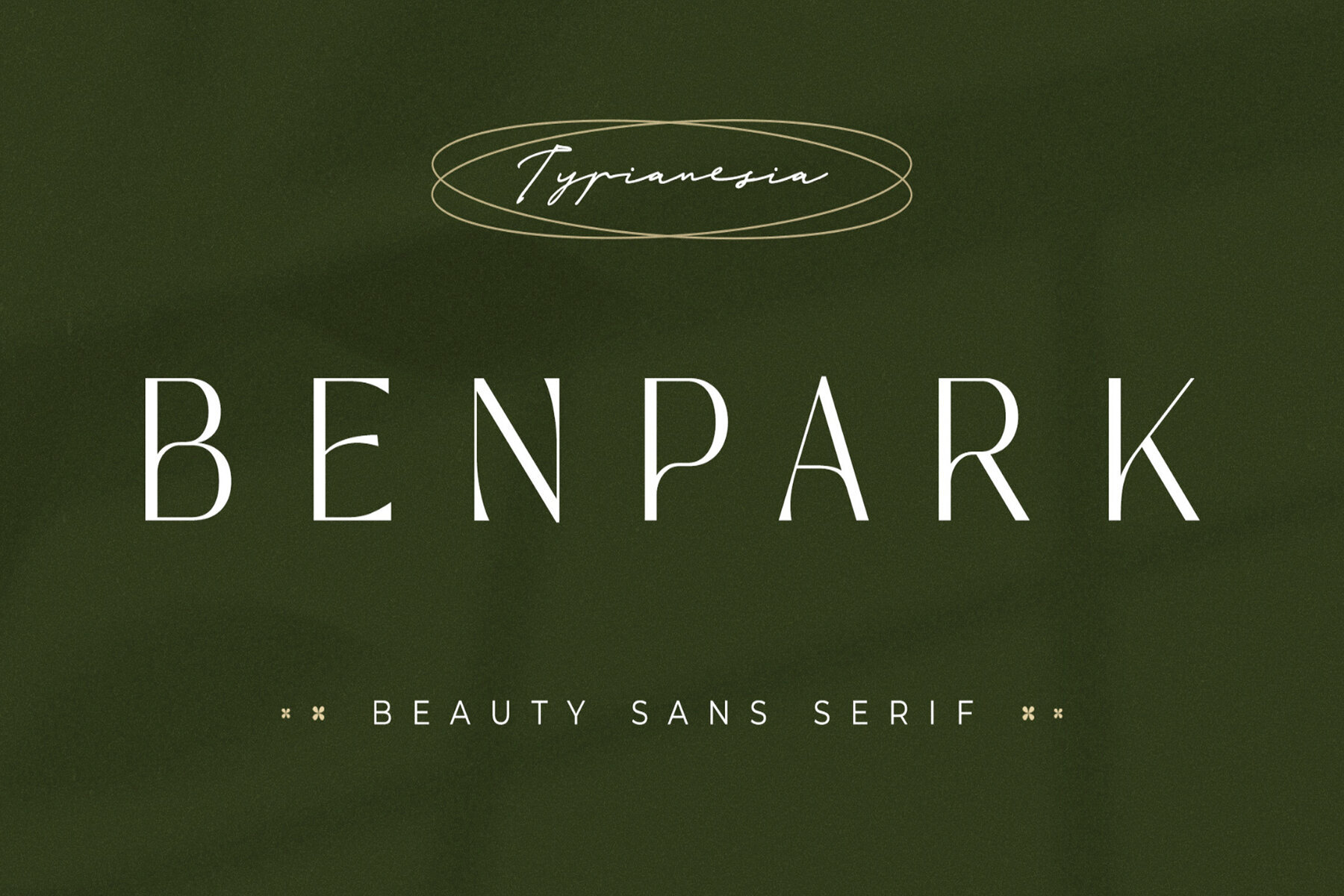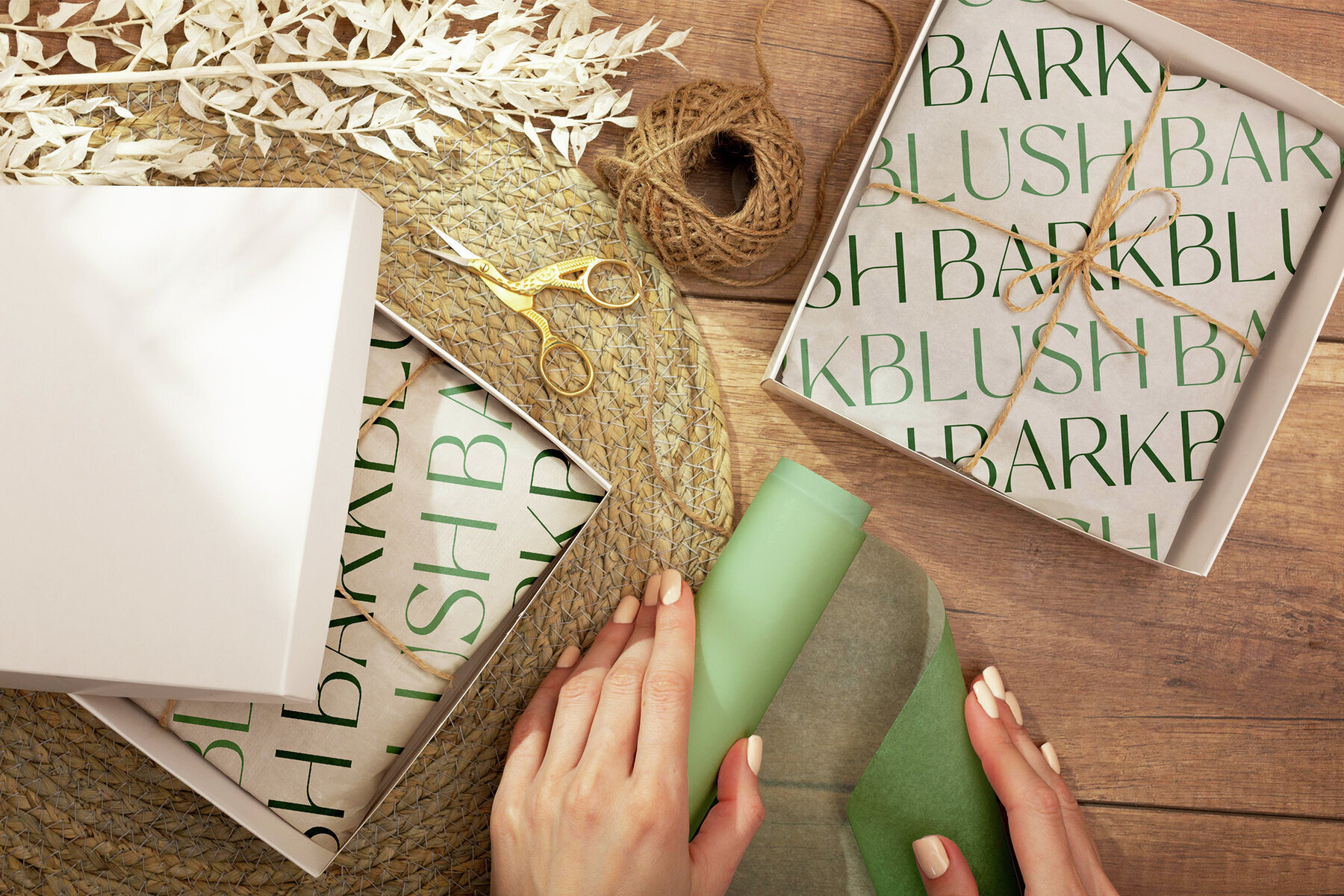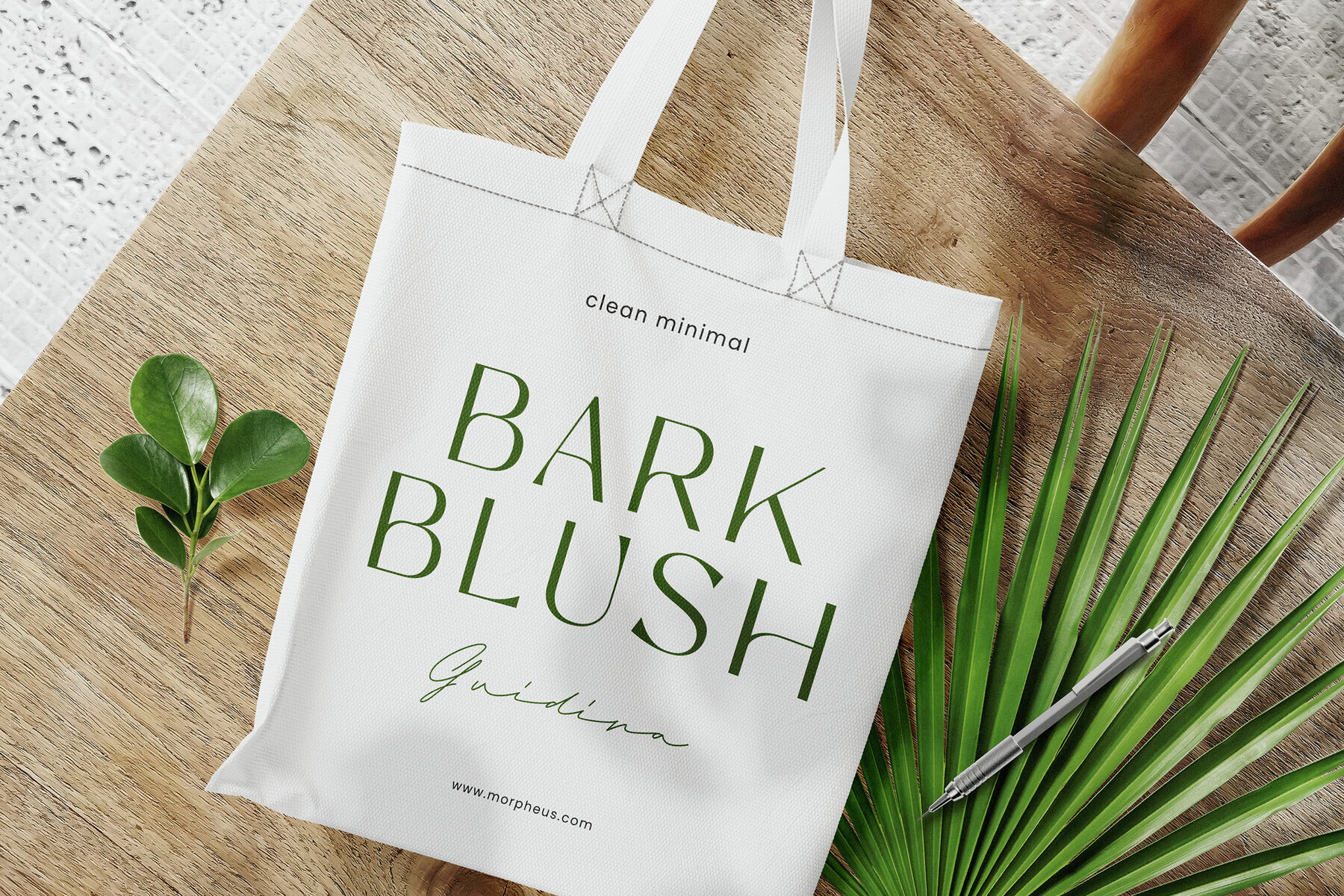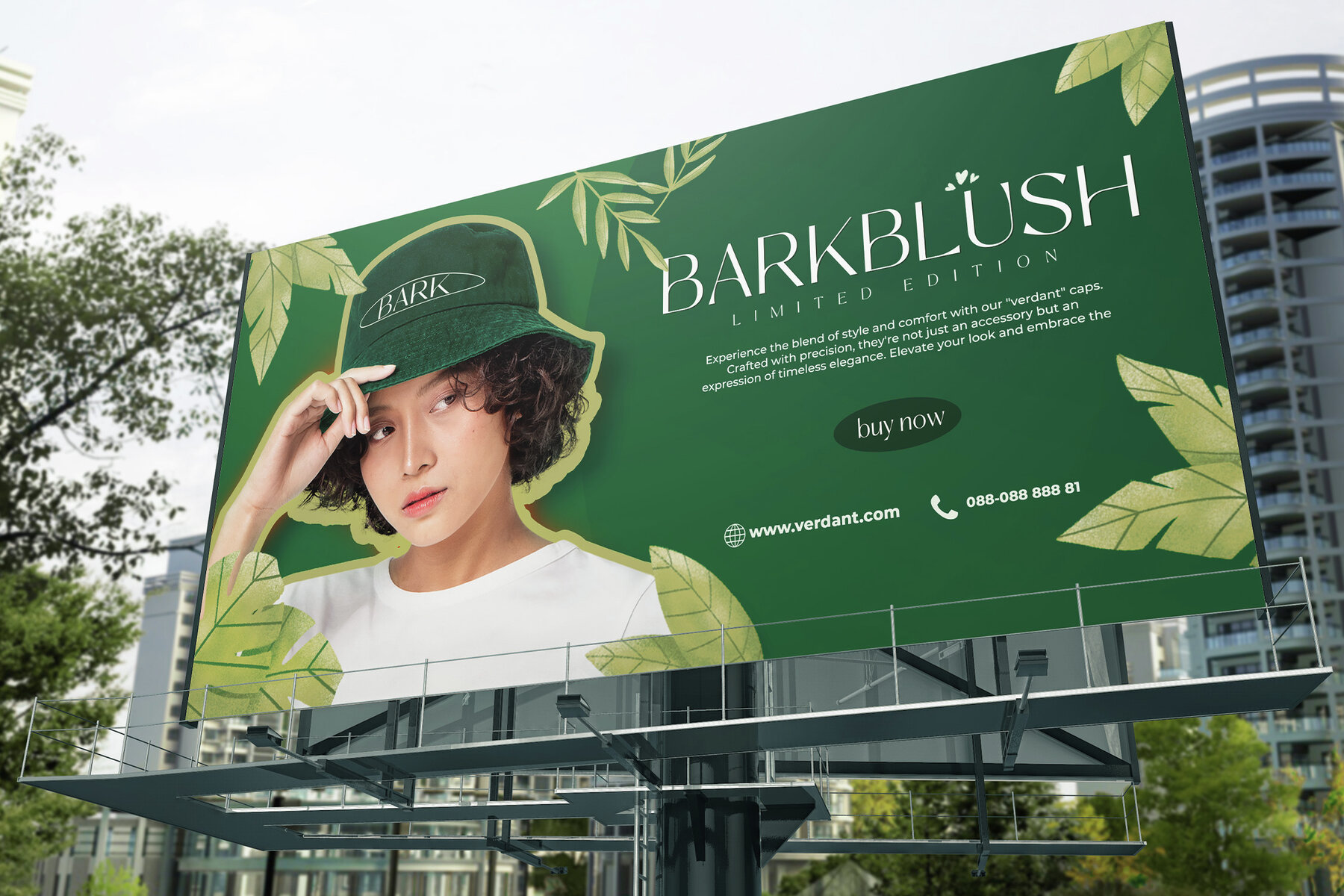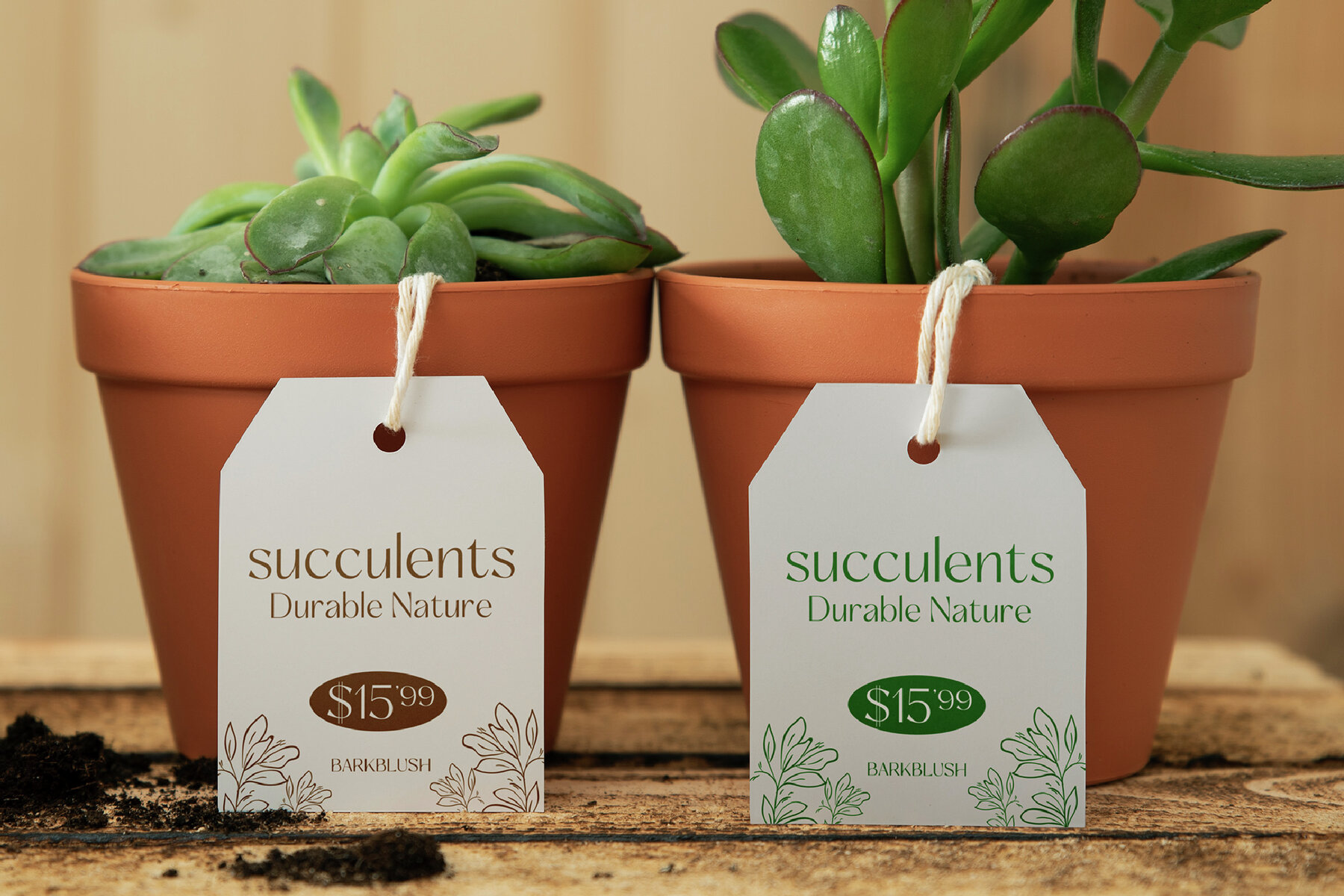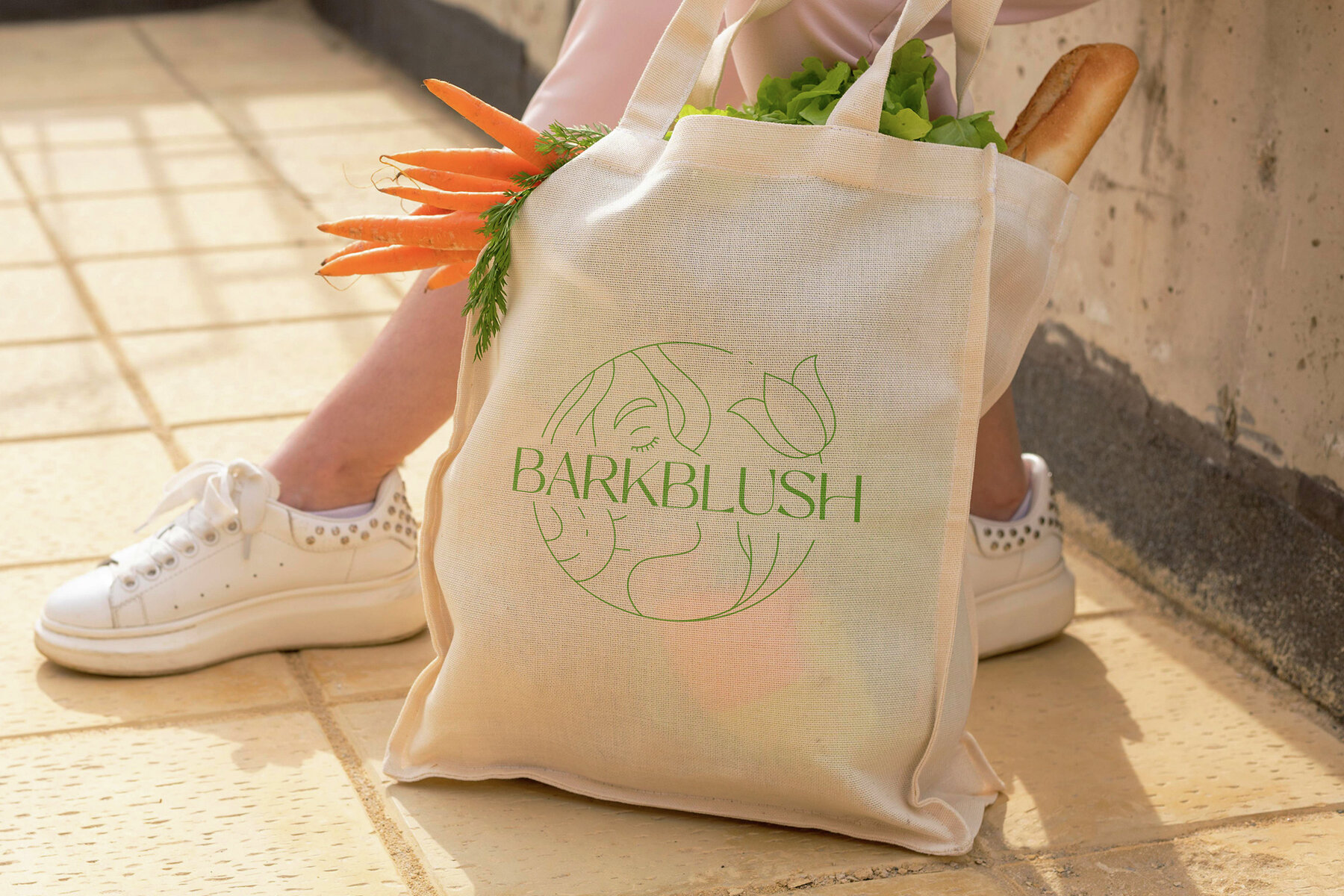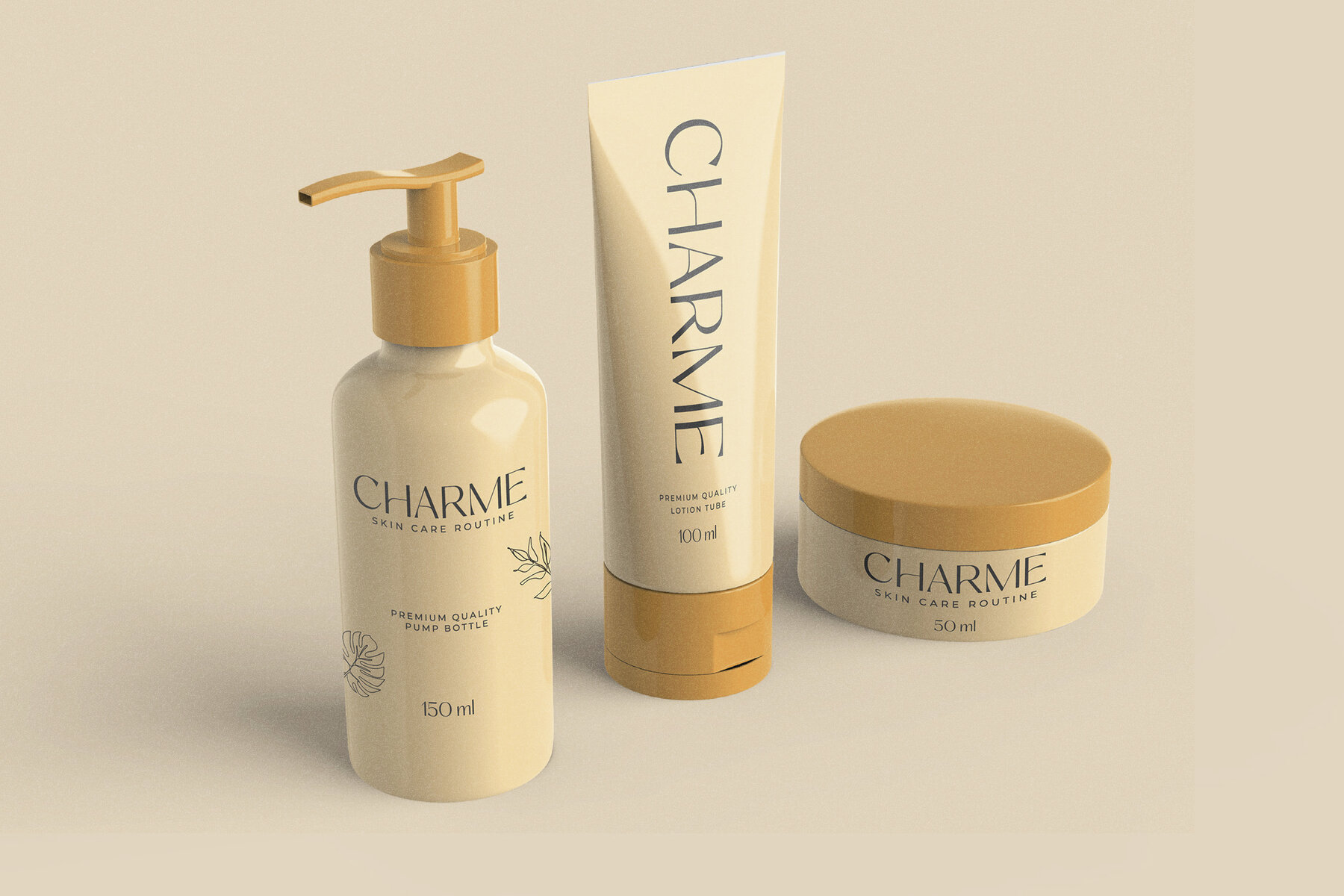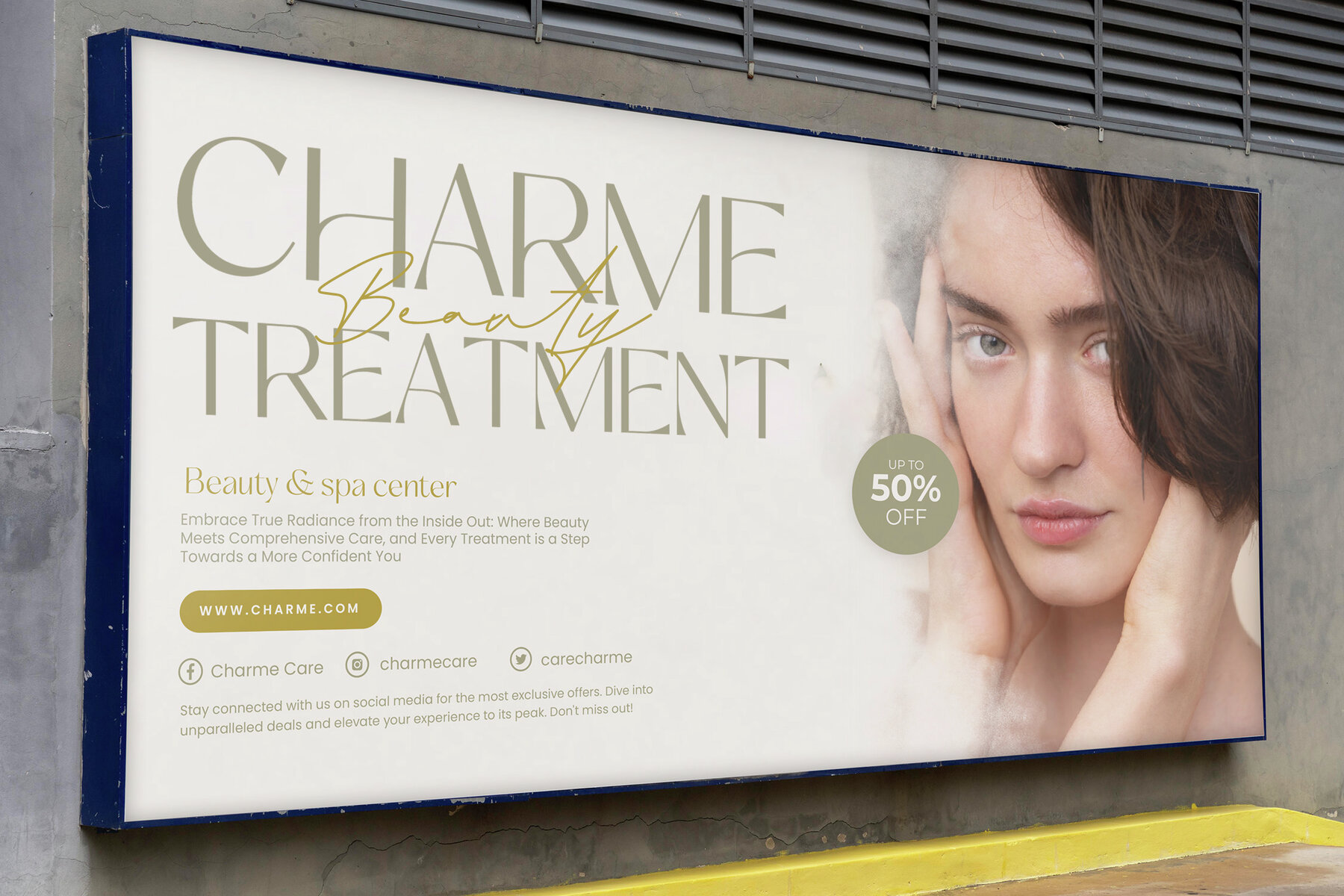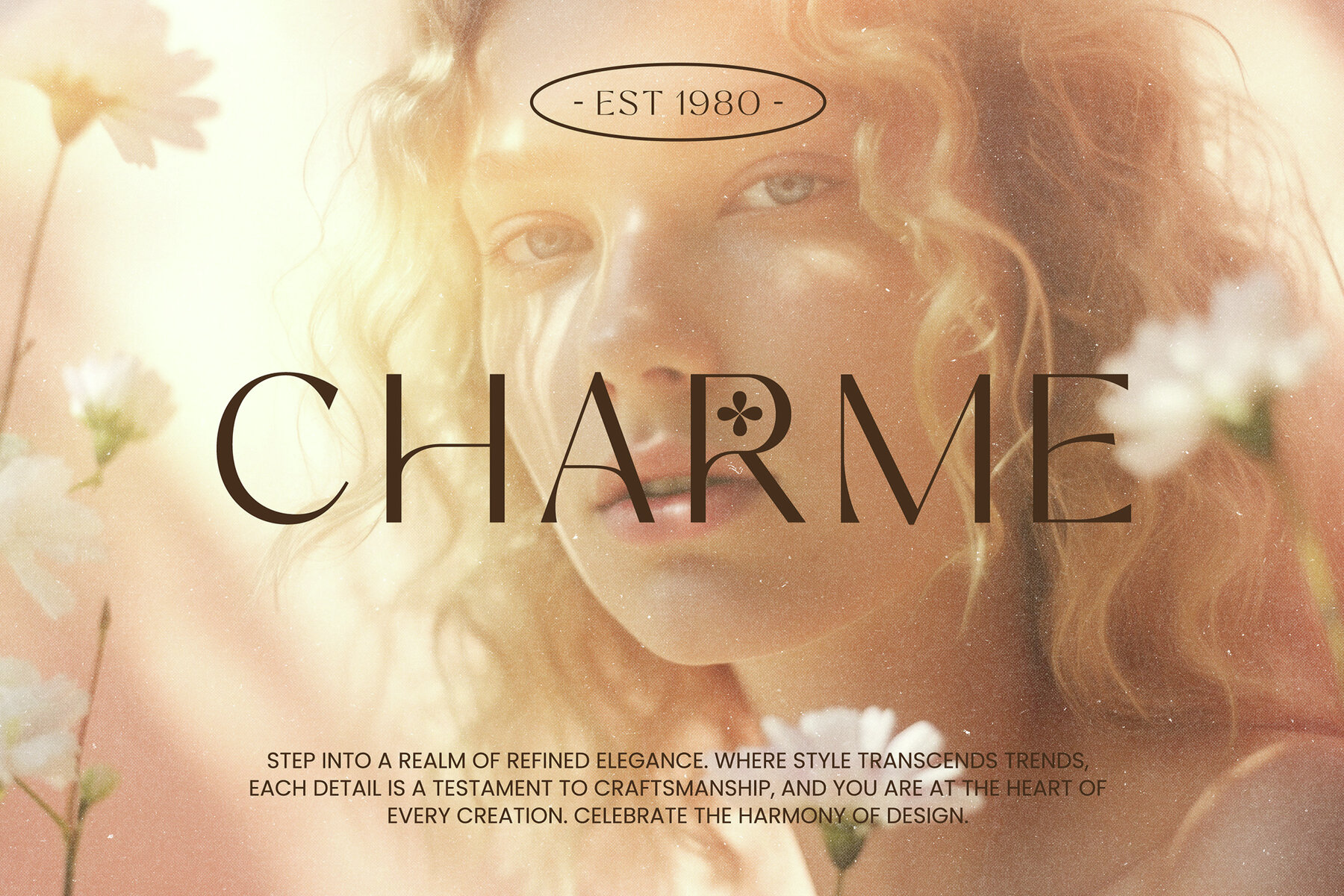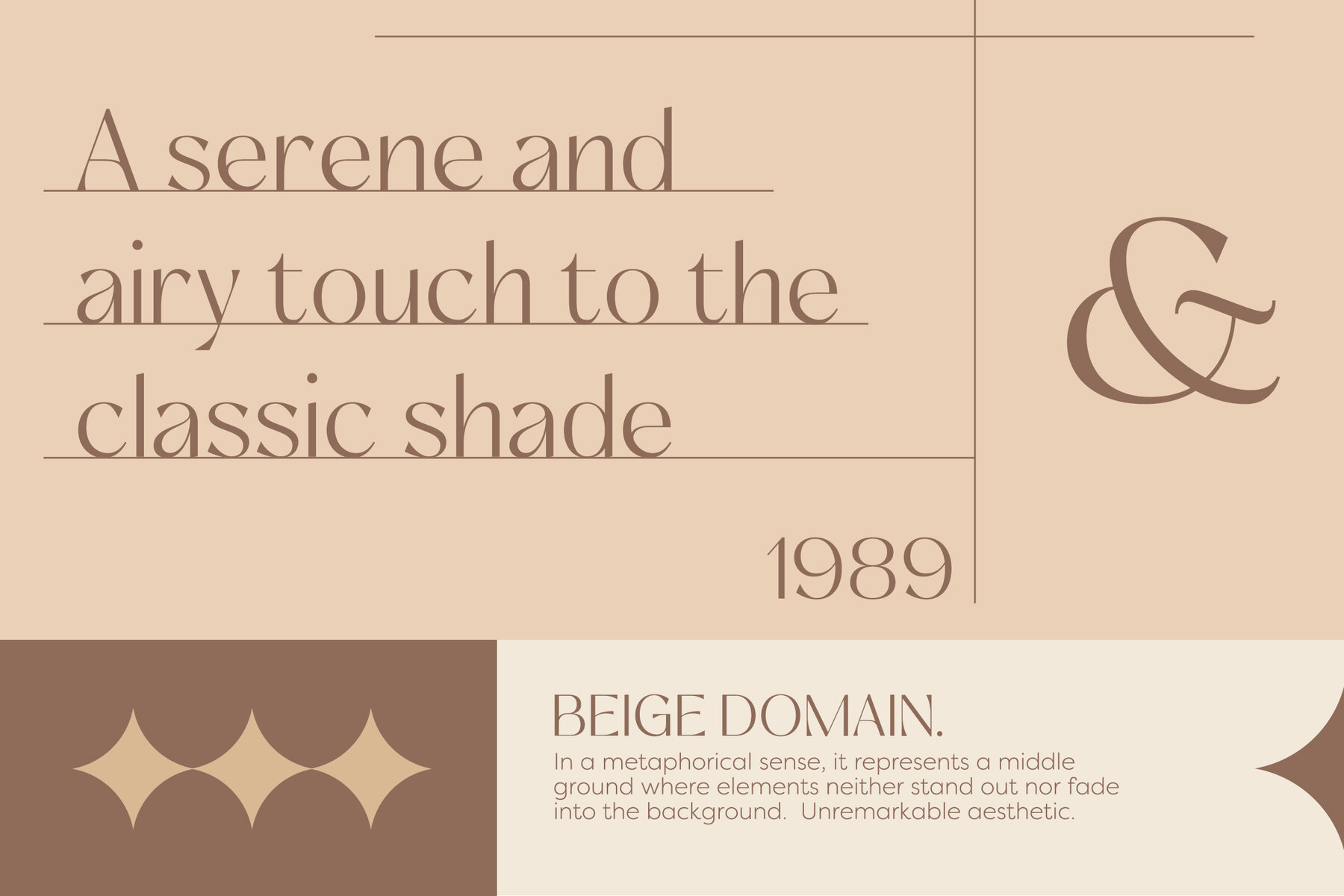
Benpark Font
Benpark Regular
Benpark embodies a Beauty and sophisticated with its sans-serif design, radiating elegance and modernity for beauty branding project. Benpark a beauty-inspired sans-serif font with ligatures. Ligatures can add a touch of elegance and sophistication to your design. You can apply Benpark in several of your design projects, such as logo design, you can use the font for your beauty or cosmetic brand logo. website headings and titles, you can apply the font to headings and titles on your beauty-related website. packaging design, If you have beauty products, consider using the font on the packaging. You can also use Benpark for printed materials, social media graphics, blog or magazine headlines, event invitations. Crafted with precision, Benpark demonstrates a deep understanding of beauty in design, ensuring a harmonious synergy between form and function.